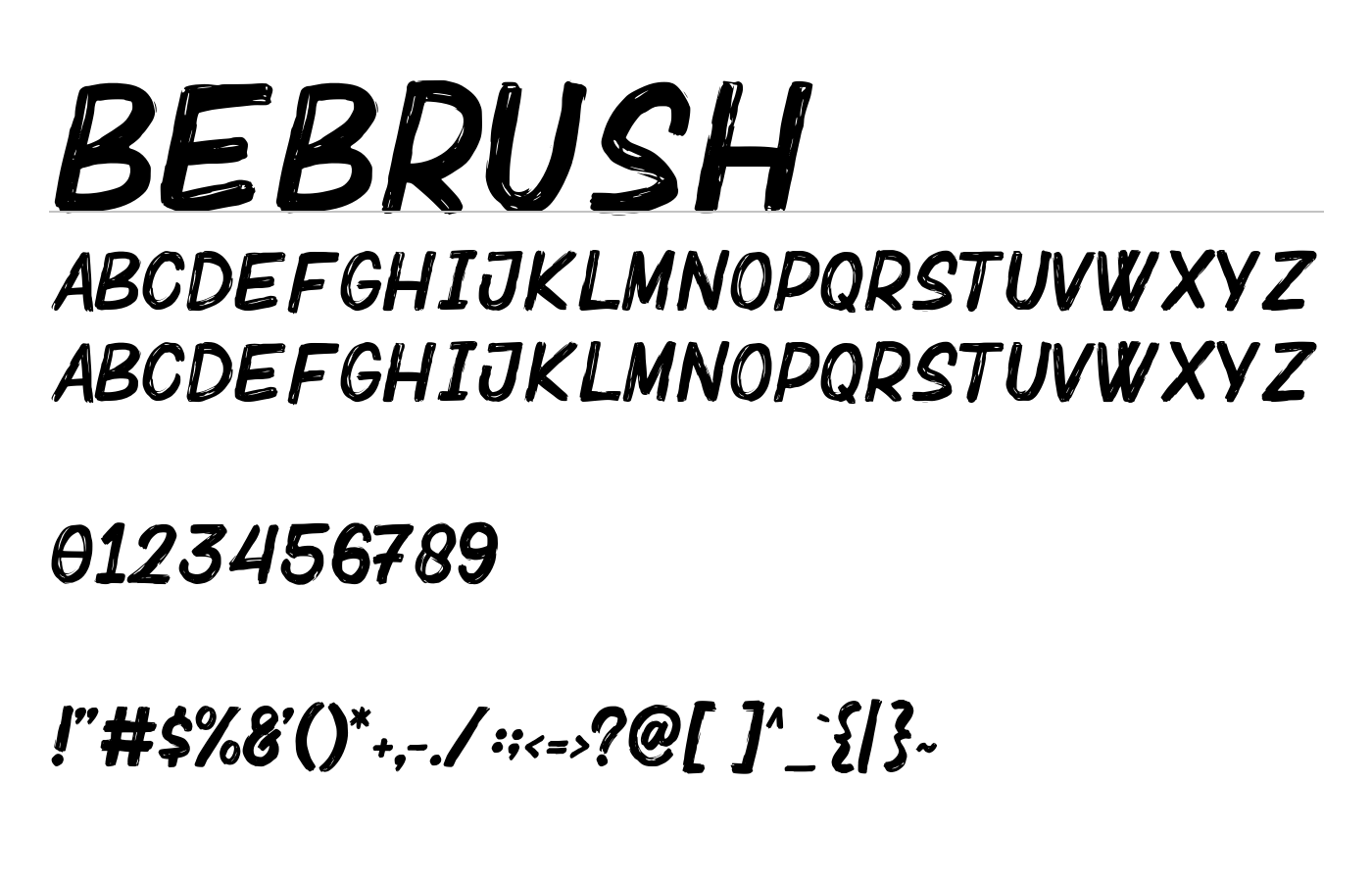
Bebrush is a lively brush-script font with a bold and textured appearance, featuring irregular strokes that mimic natural hand-painted brushwork. Its uppercase letters and carefully crafted characters convey an energetic, creative vibe, making it perfect for informal designs, artistic branding, and eye-catching headlines. This font works well in projects needing a dynamic, handmade feel that stands out with personality and charm.
Bebrush Font
About Bebrush Font
| Font family | Bebrush Font |